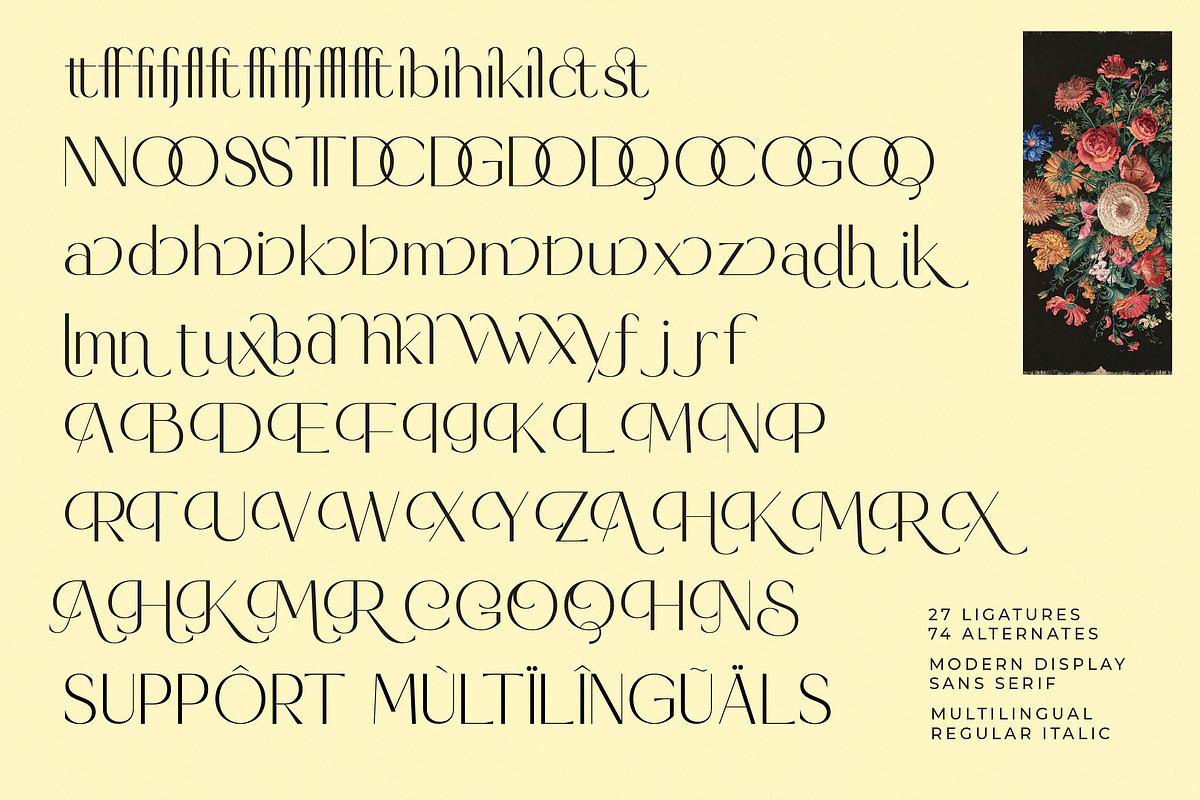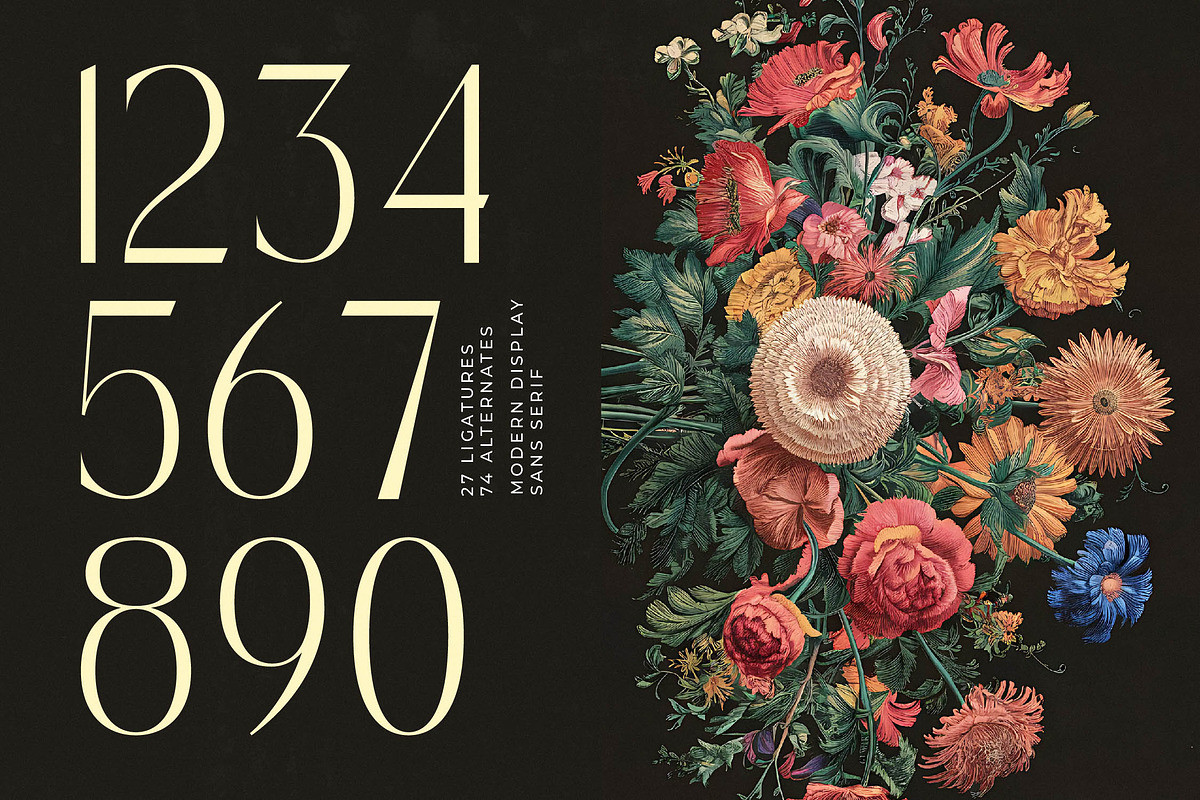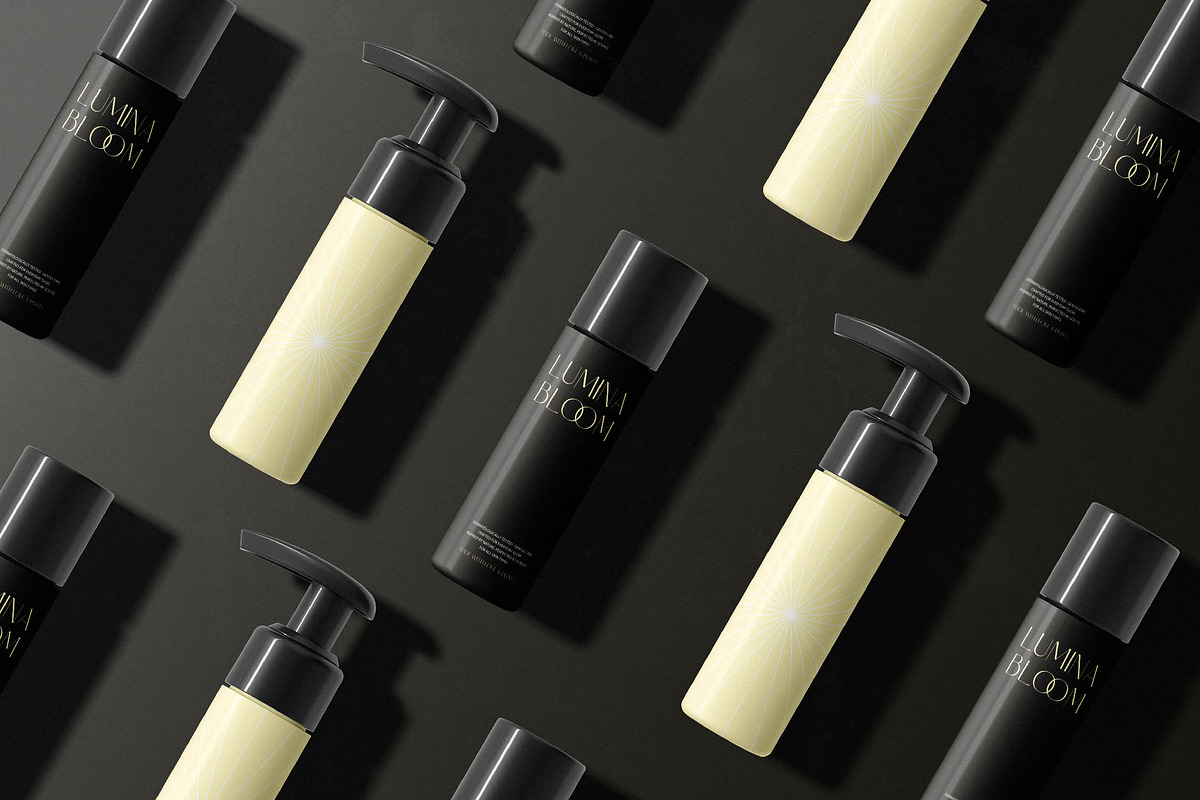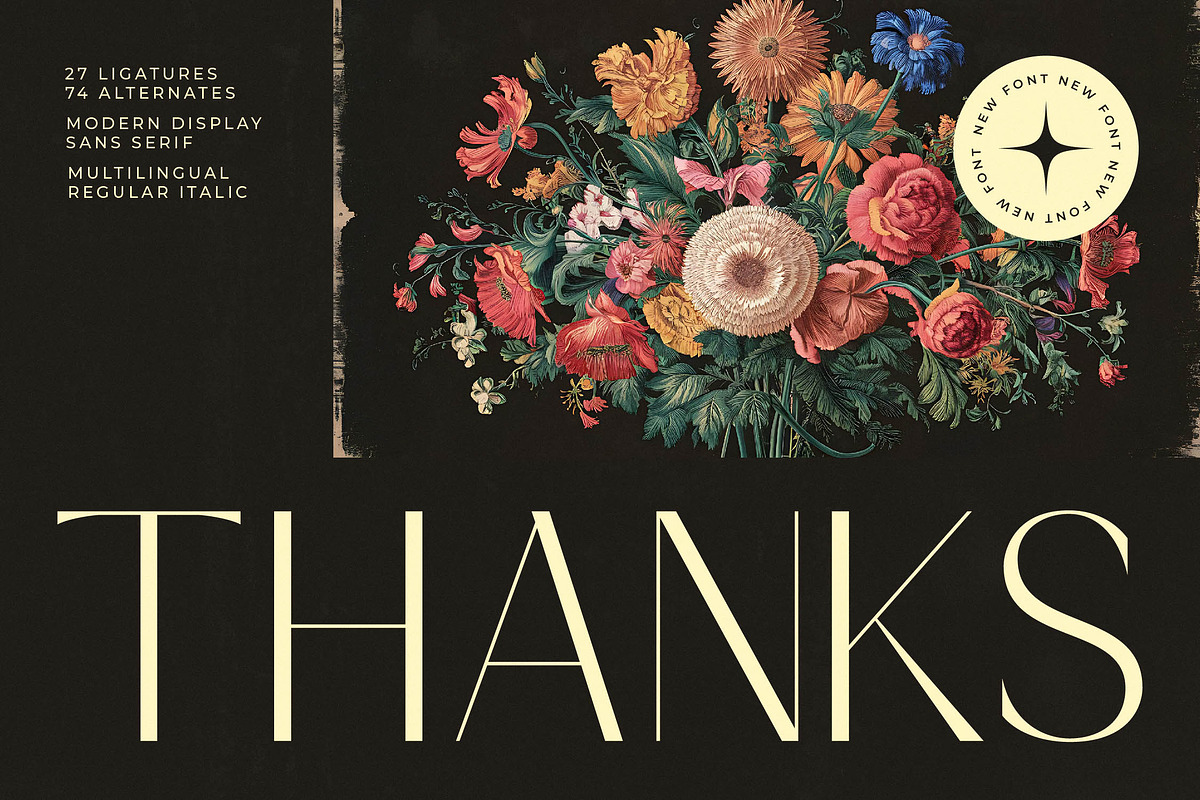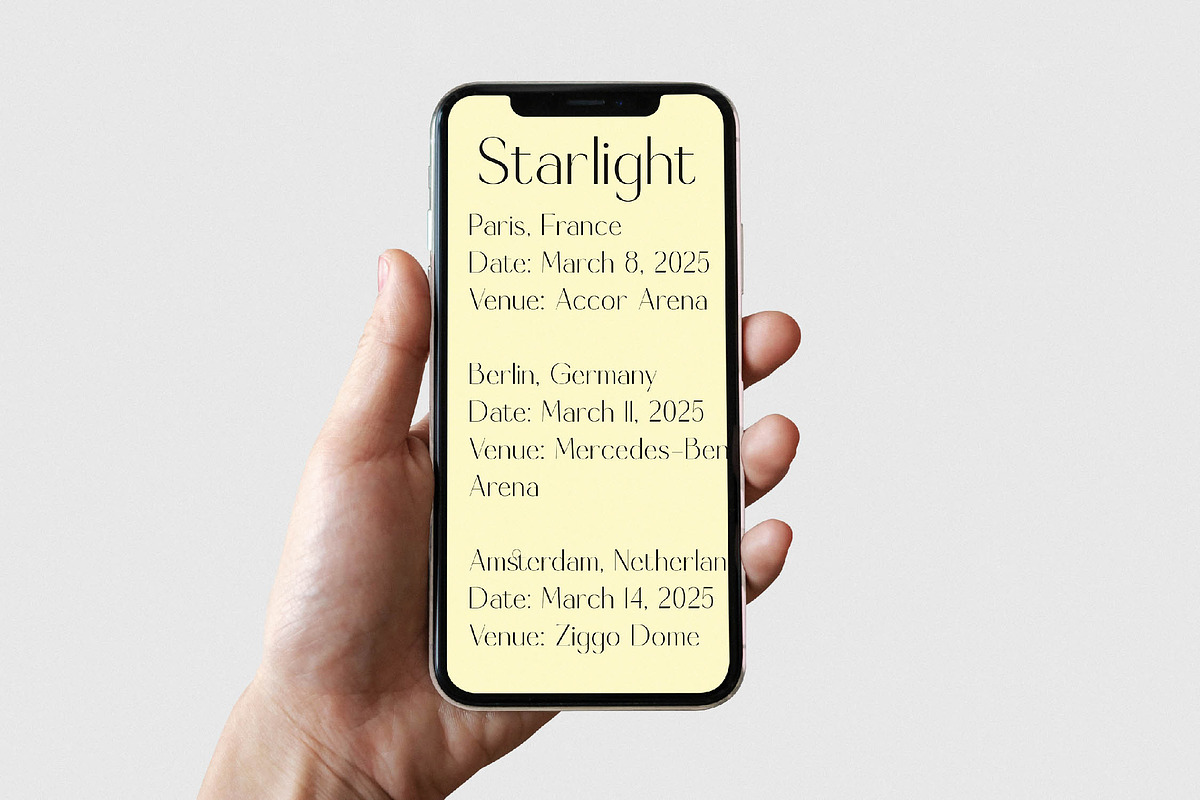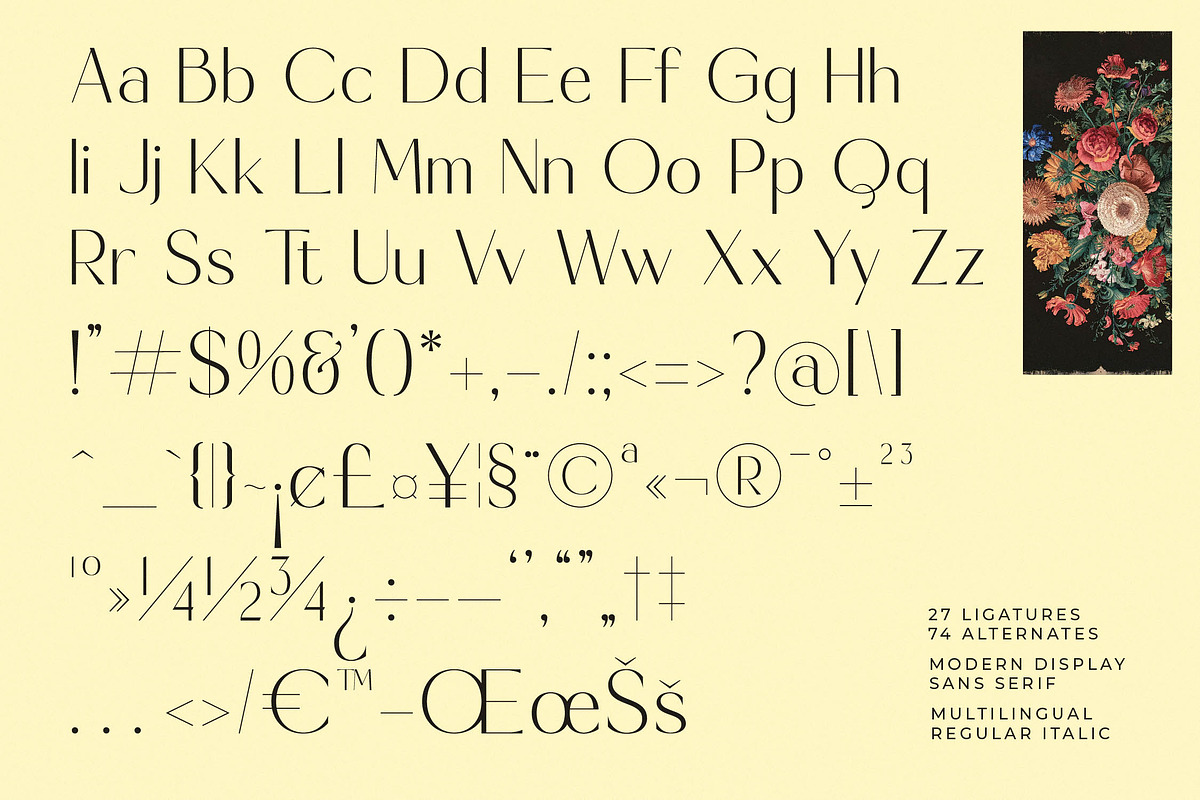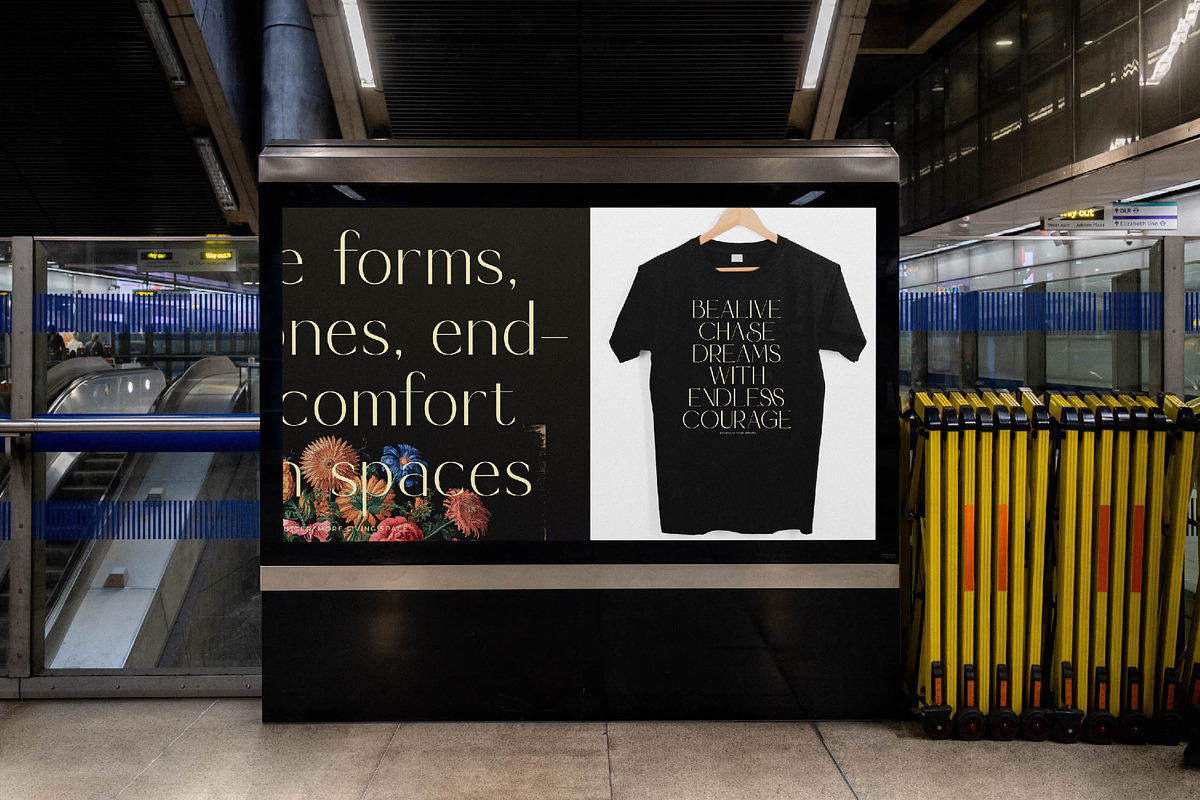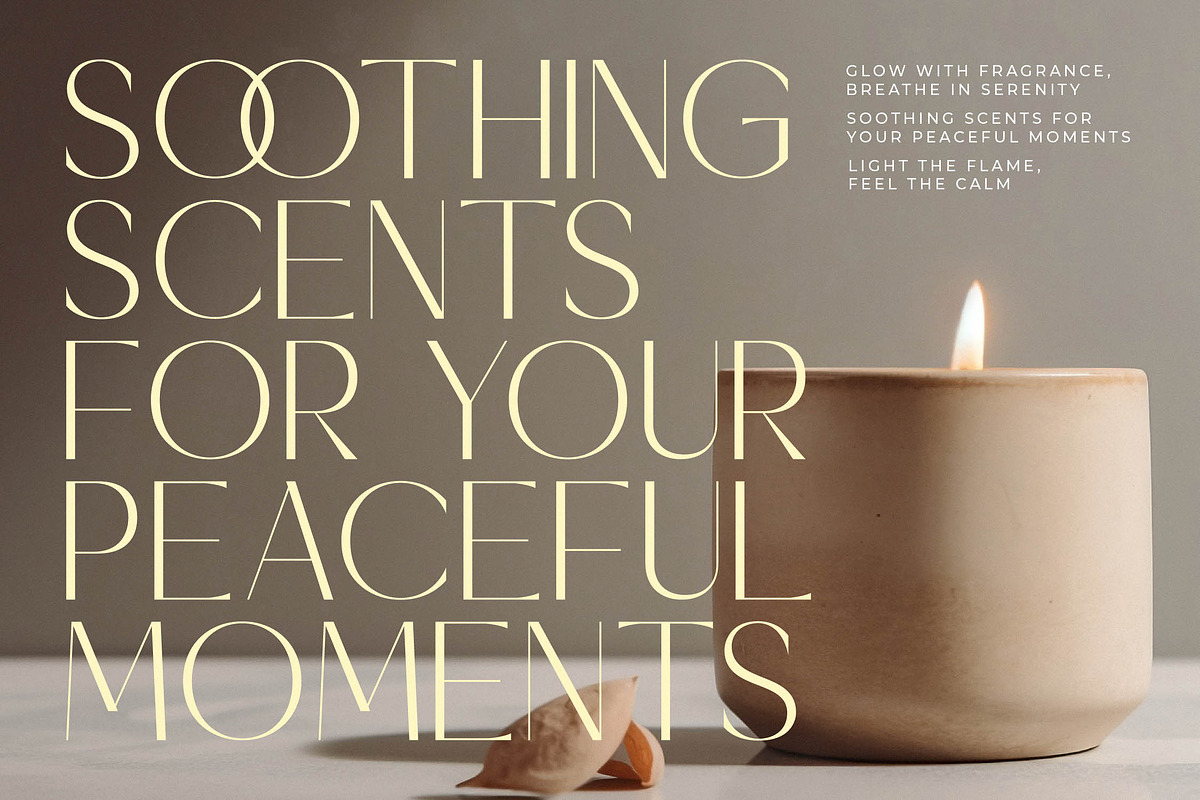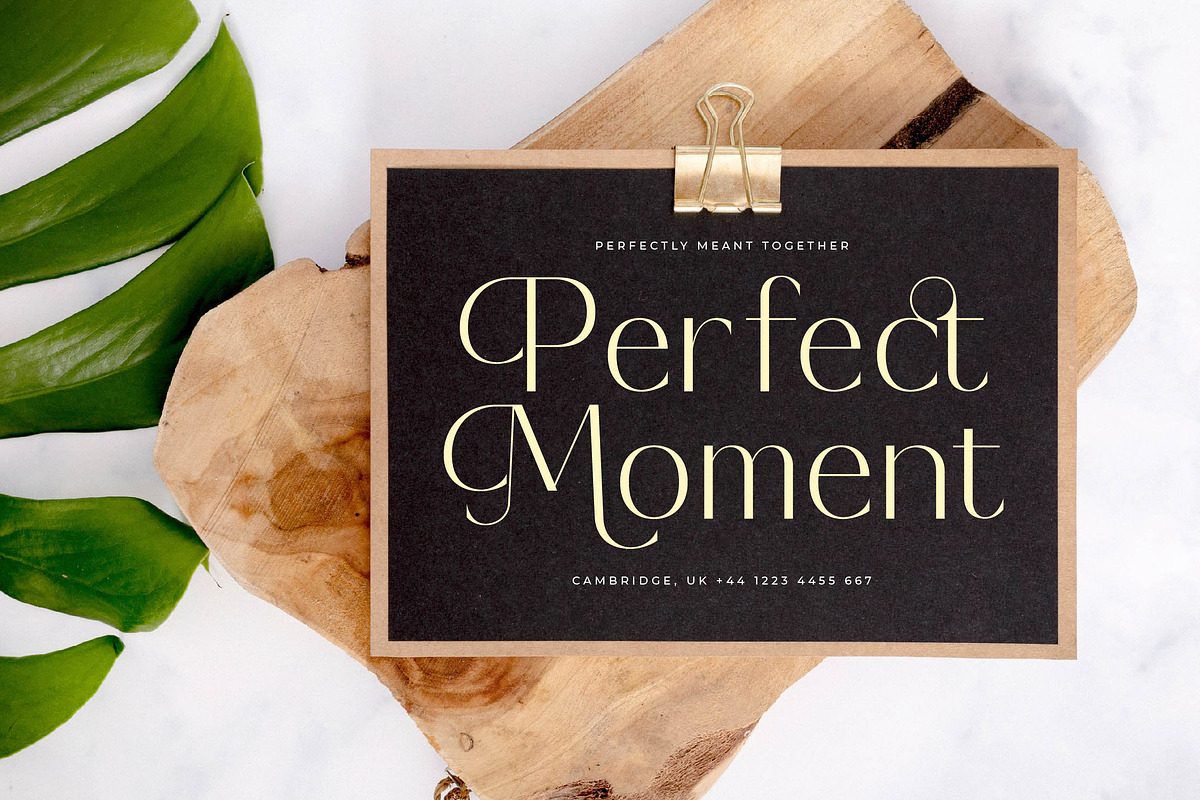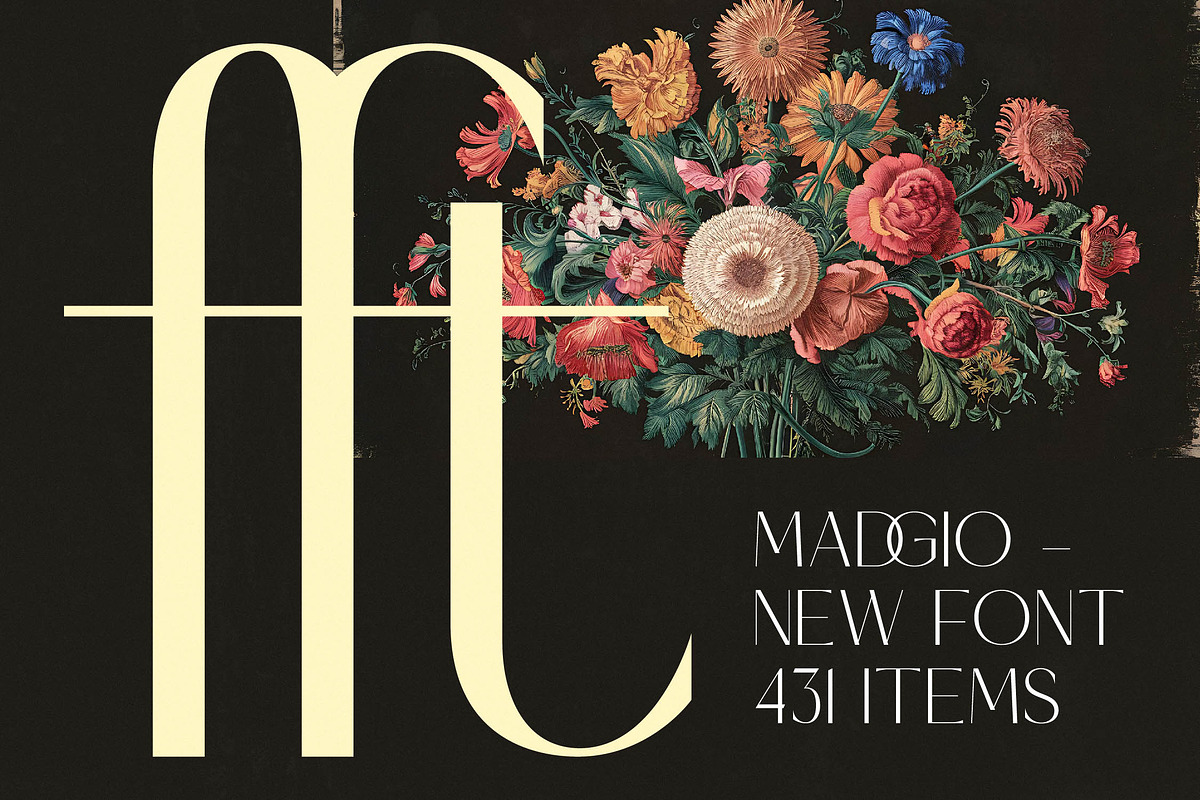
Madgio Modern Elegant Display
Experience the pinnacle of sophisticated design with Madgio, a typeface that redefines elegance through its unique balance of sharp lines and fluid curves. This font captures the essence of timeless beauty, making every word a work of art that demands attention and breathes life into your creative projects.
Inspired by the romantic era of botanical illustrations and the sharp precision of modern high-fashion aesthetics, the atmosphere of this typeface is one of curated luxury. It draws from a world where organic floral motifs meet the structural integrity of contemporary architecture, resulting in a visual language that is both ethereal and grounded.
As a premier modern serif display choice, this font offers a luxury typography experience that elevates any layout with its high-contrast serif appeal and thin, graceful stems. It is the quintessential editorial font for designers seeking maximum branding impact without sacrificing the delicate nuances of high-end craftsmanship.
Tapping into the current modern serif trend, this typeface addresses the growing demand for editorial display fonts that break away from traditional geometric constraints. It leads the movement towards character-driven typography, offering a refreshing alternative to standard fonts by blending classical proportions with avant-garde flair.
This versatile typeface is the perfect solution for high-end logo design and comprehensive branding systems that require a touch of class. From sophisticated editorial layouts and luxurious packaging to romantic wedding stationery and cutting-edge fashion lookbooks, it adapts seamlessly to any high-concept visual identity.
Unlock your creative potential with a vast library of 27 unique ligatures and 74 stylistic alternates that allow for endless customization. The font also includes elegant swashes and full multilingual support, ensuring your message reaches a global audience with its comprehensive set of international characters.
- Ligature 27 Alternate 74